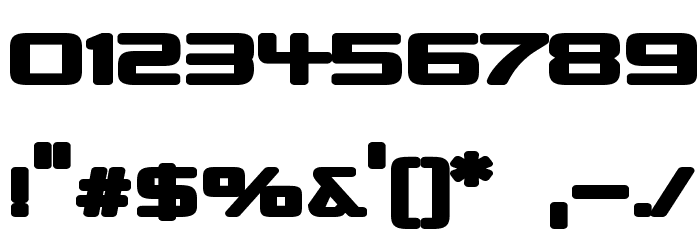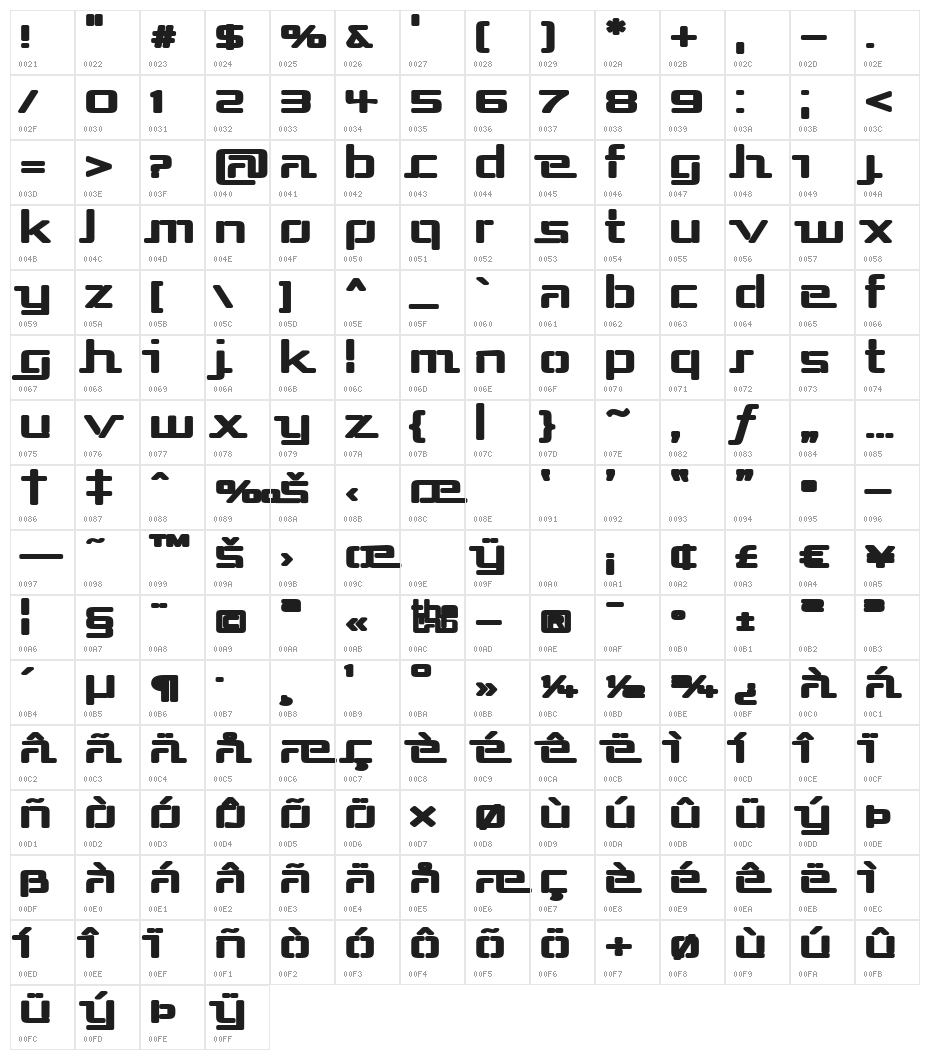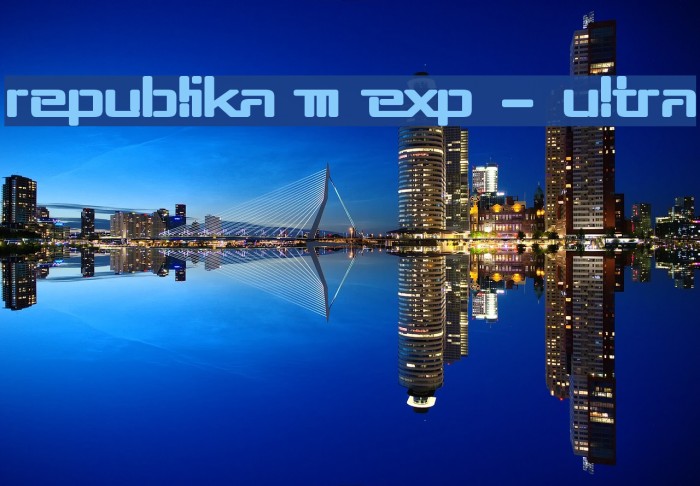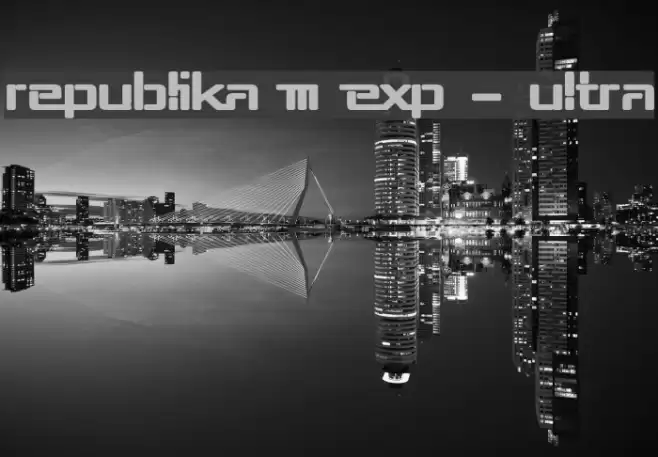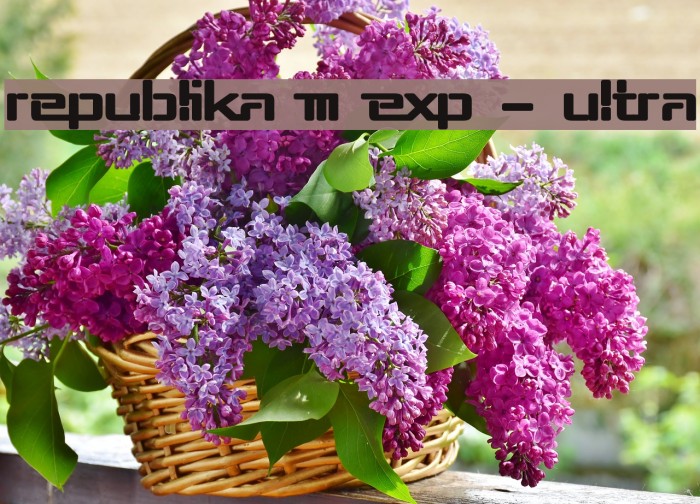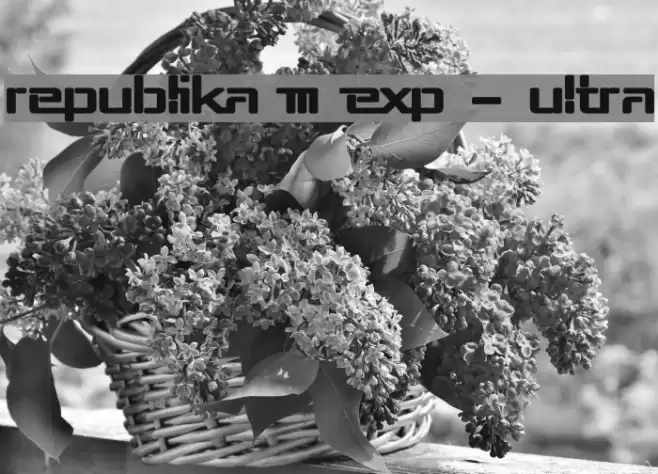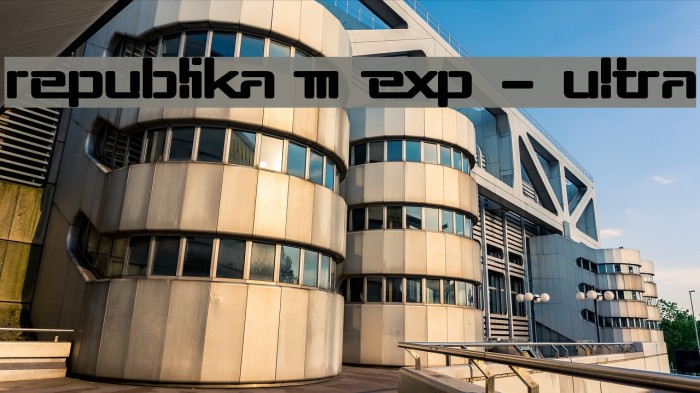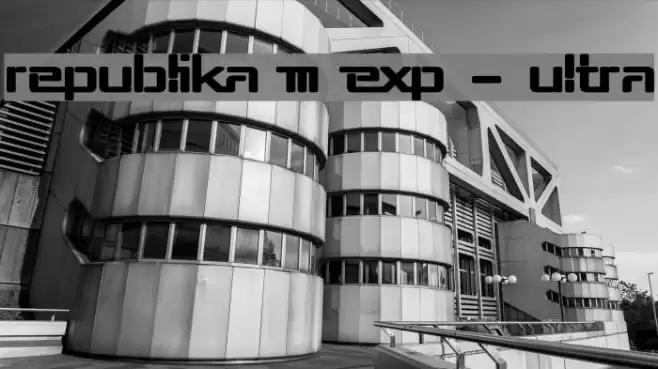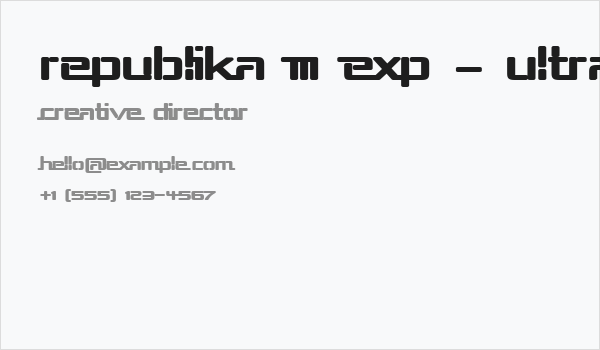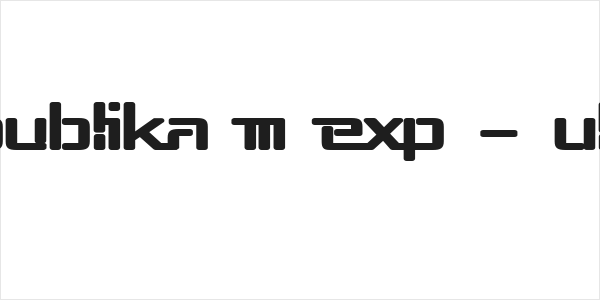
Republika III Exp - Ultra Font
Republika III Exp - Ultra Description
This font features a bold and futuristic design with a geometric structure. The characters are wide and have a consistent thickness, giving them a strong and impactful presence. The rounded edges and smooth curves add a modern touch, while the uniformity in letter height and width ensures readability. The font's style is reminiscent of digital or sci-fi themes, making it suitable for projects that require a contemporary and tech-savvy look. The numerals and special characters maintain the same bold and structured appearance, ensuring consistency across all text elements.
| Proposed Projects | Ideal for tech-related branding, sci-fi movie posters, video game titles, and modern digital interfaces. |